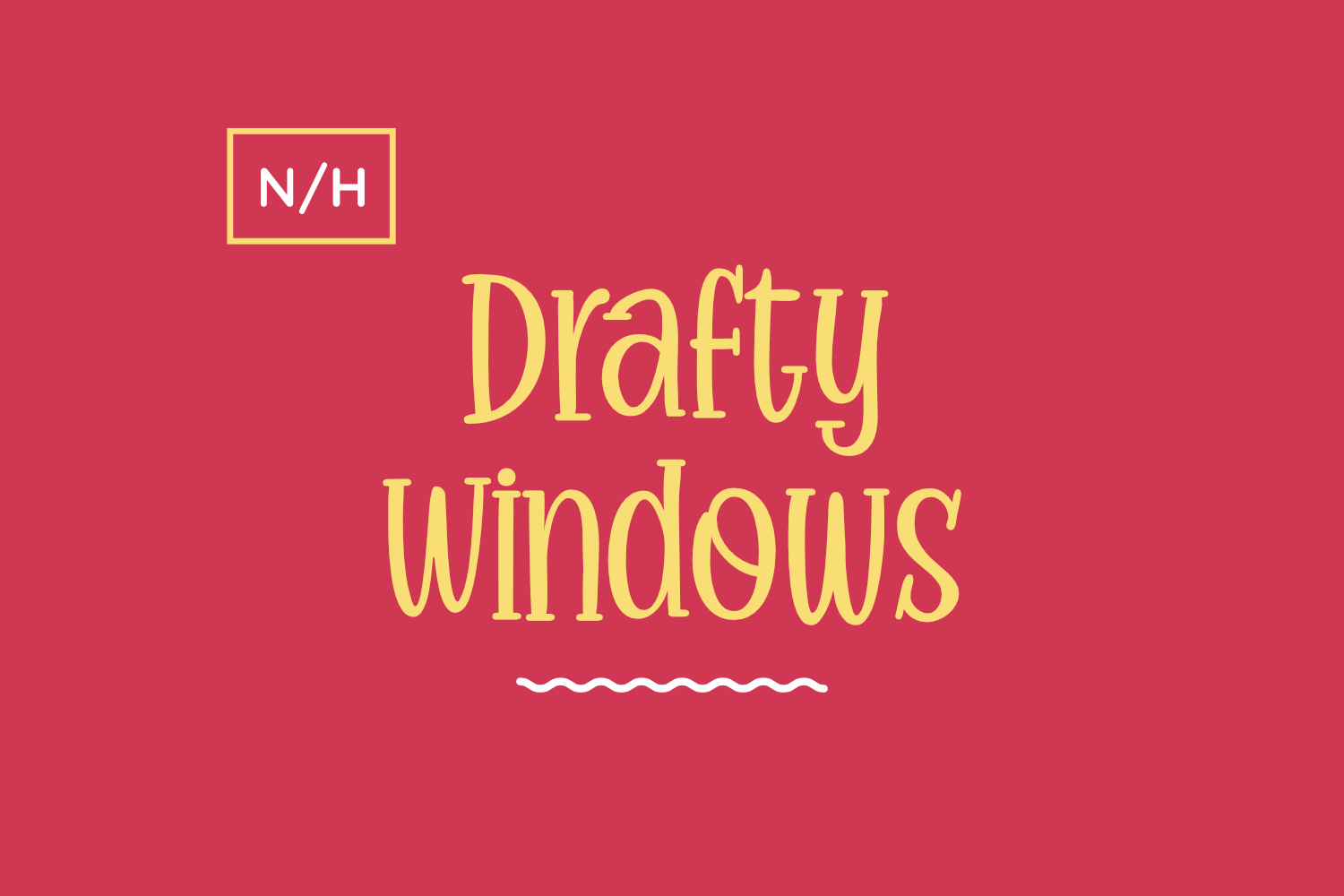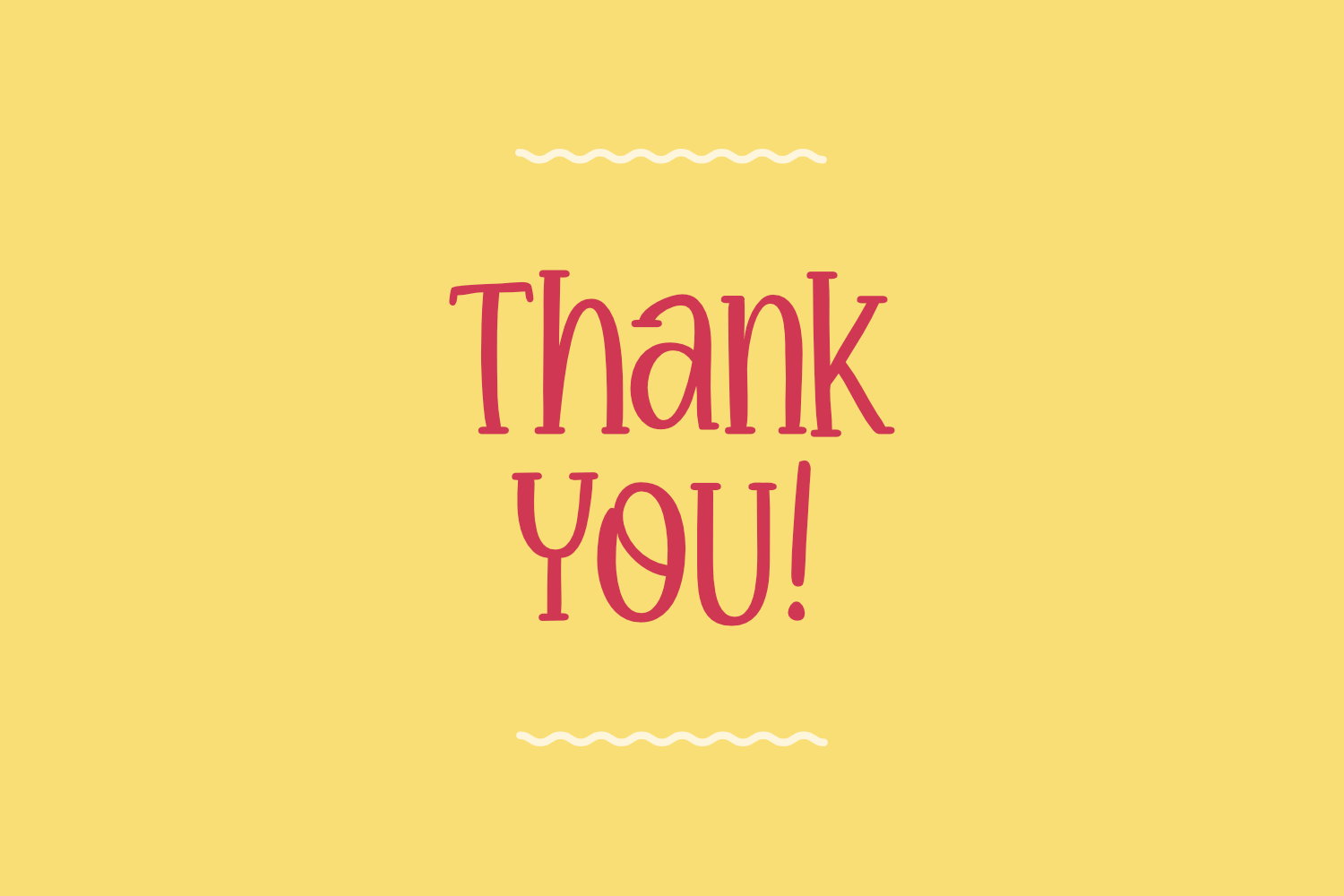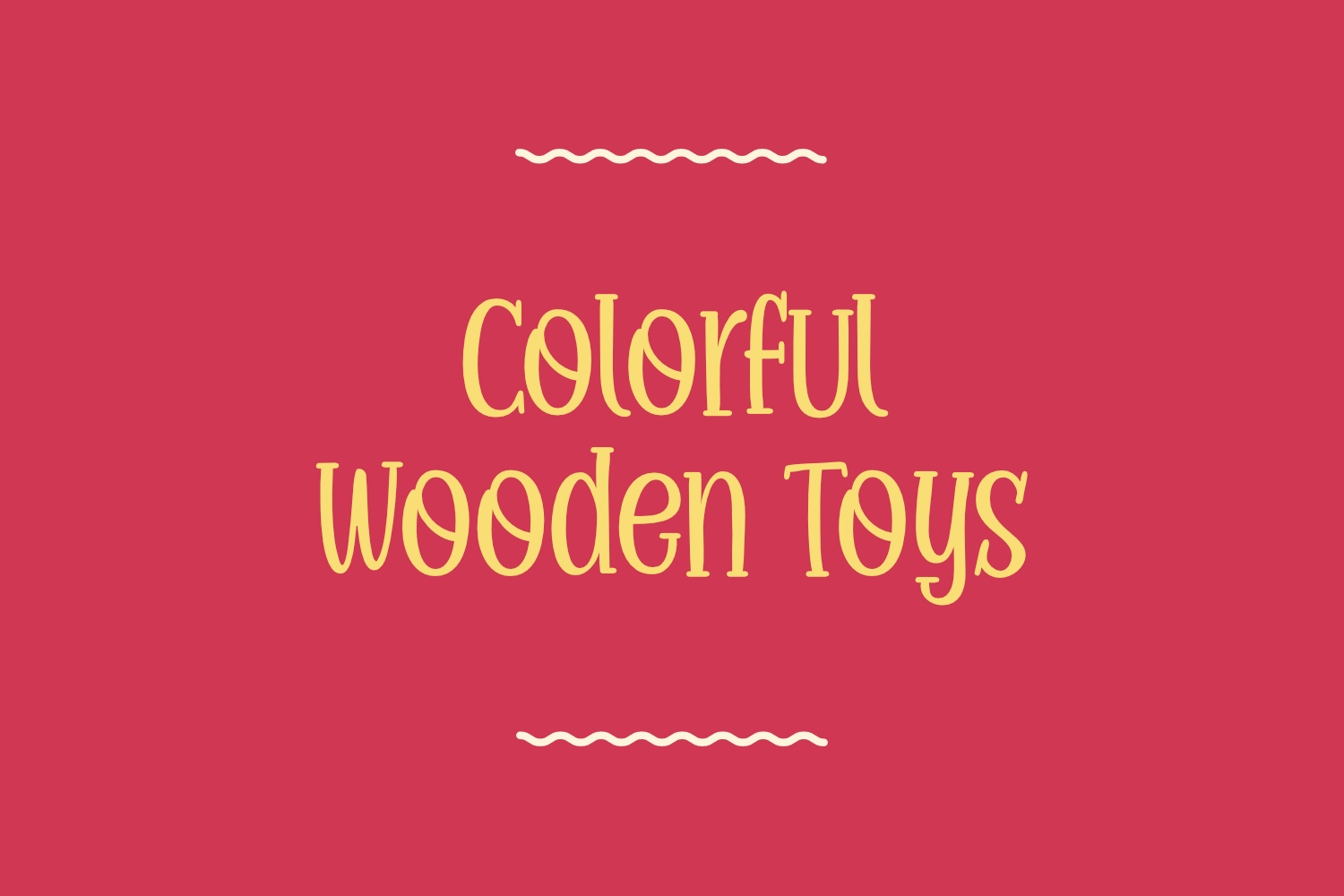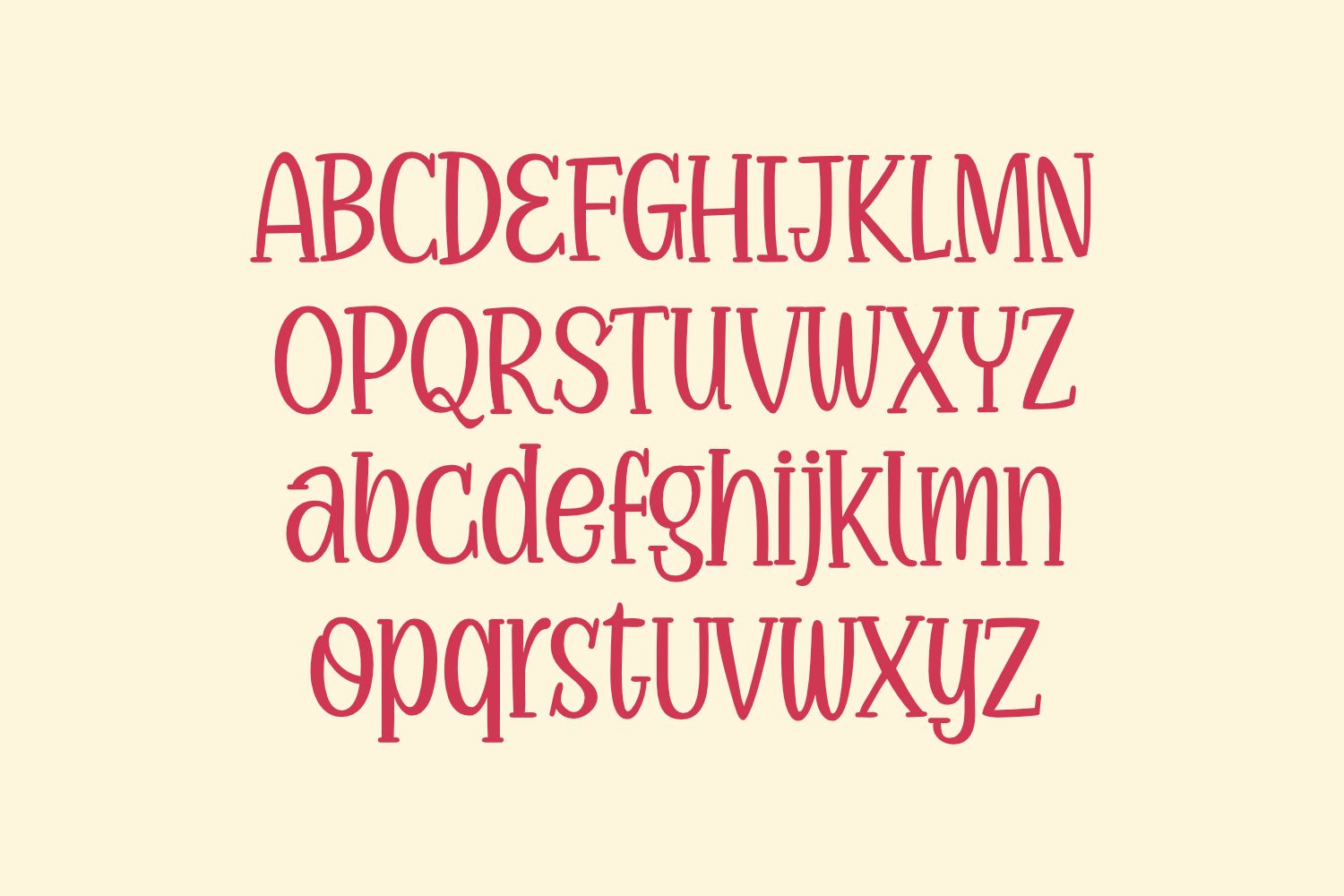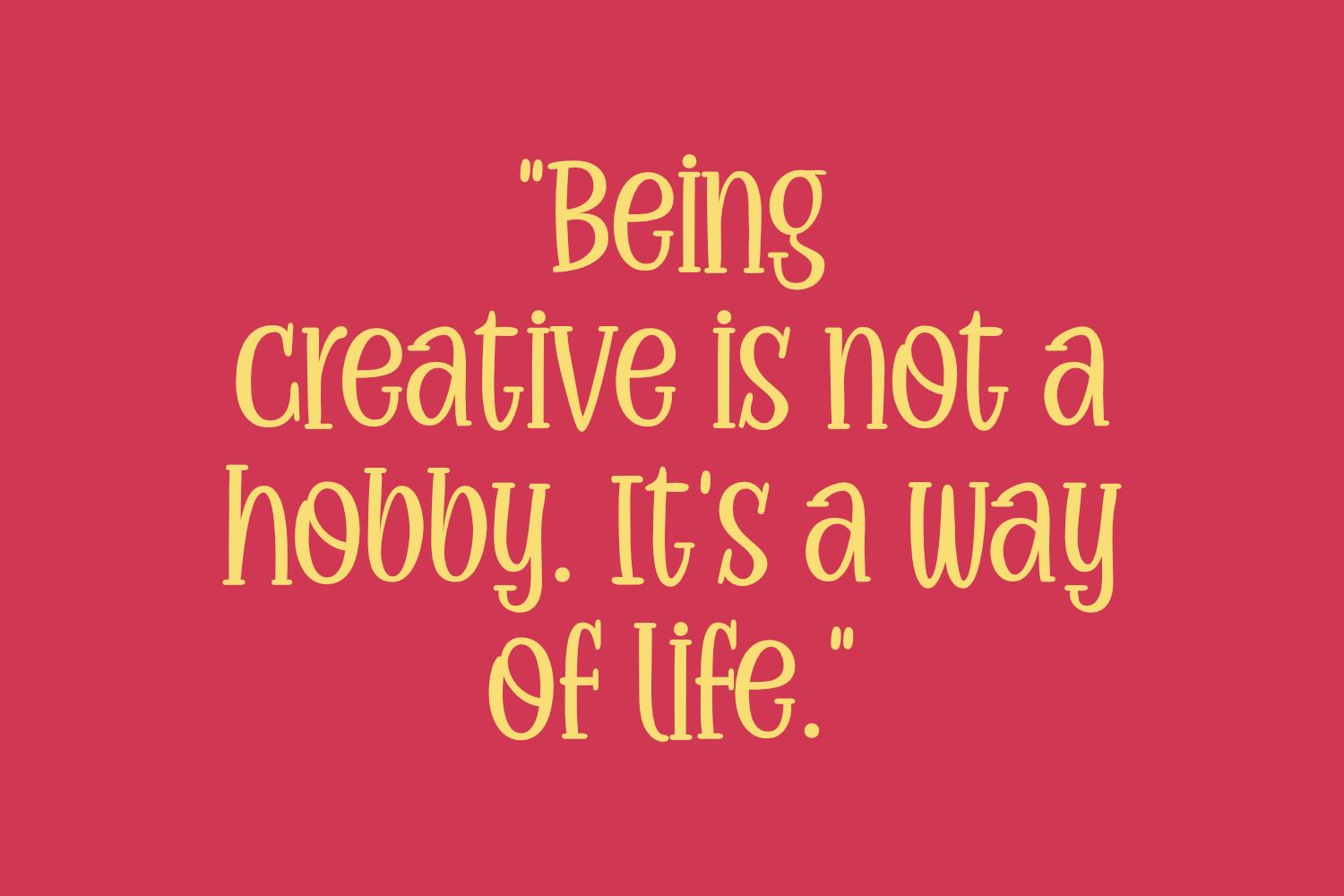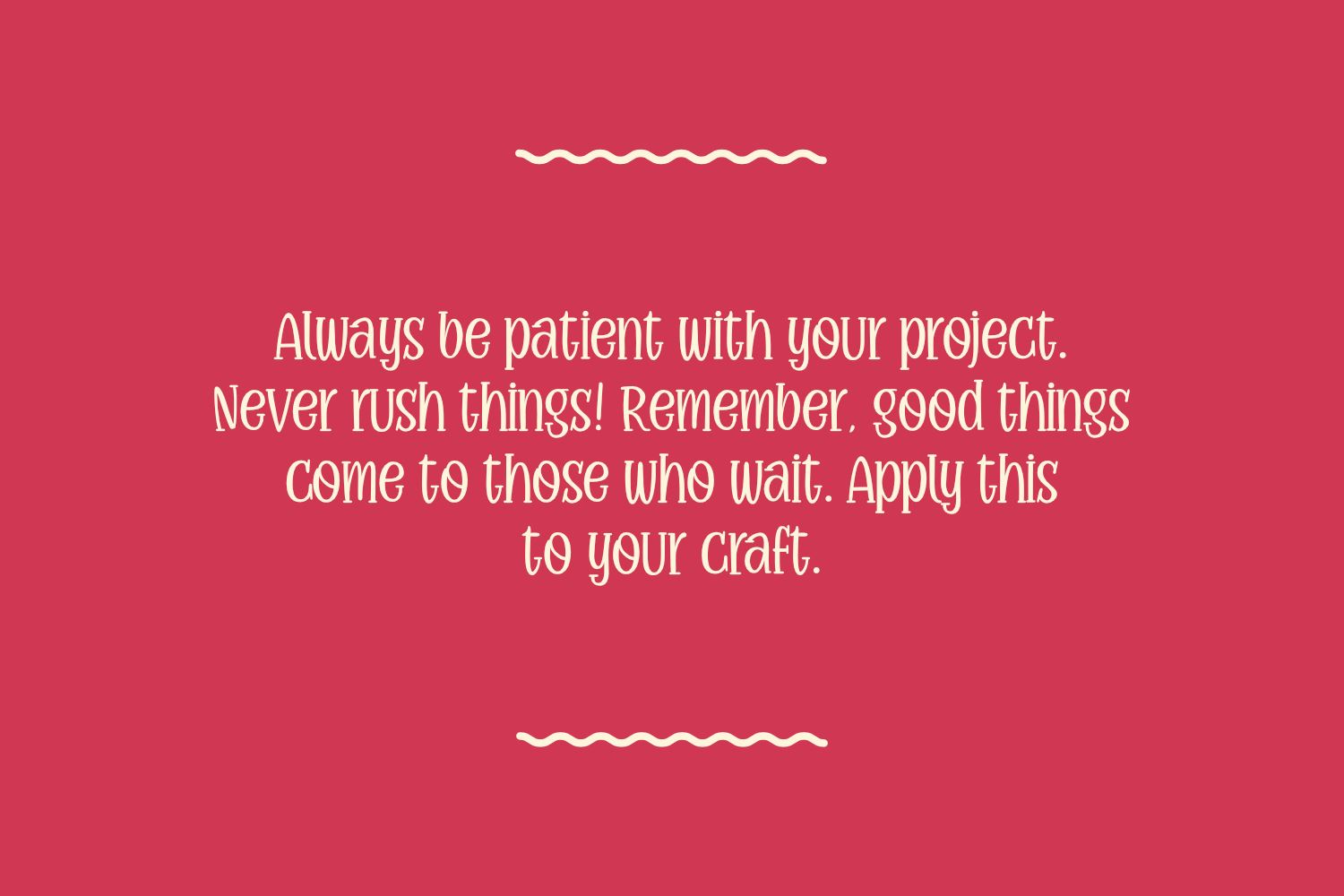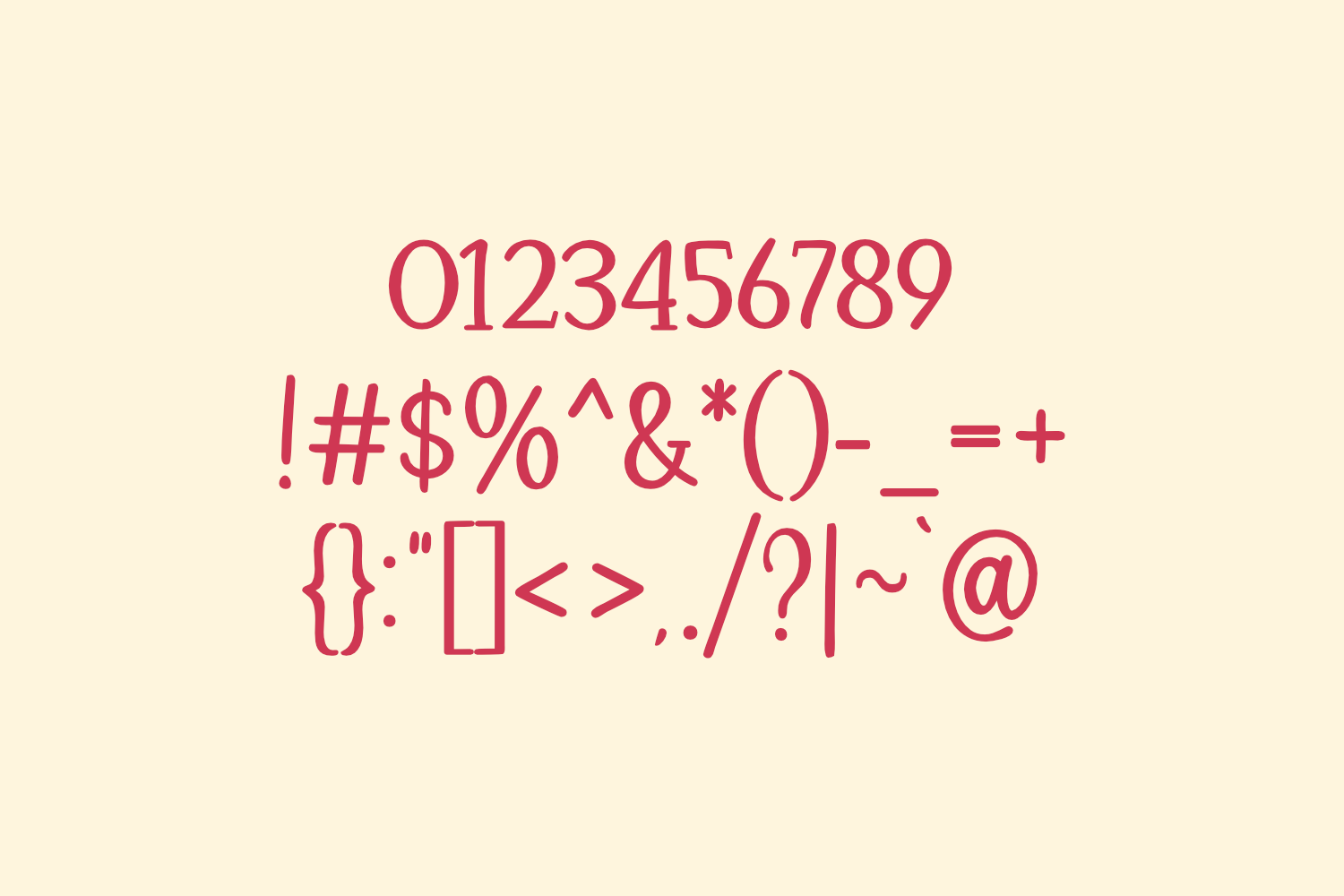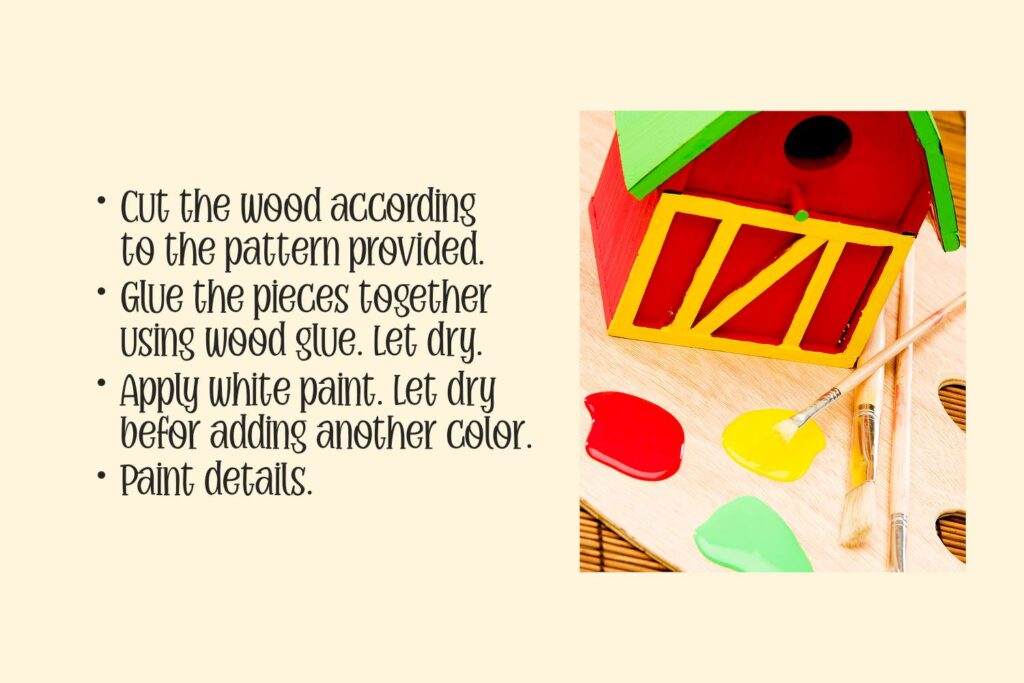
Drafty Windows – a Whimsical Script Font
About Drafty Windows – a Whimsical Script Font
Drafty Windows is a cute, quirky and whimsical script font. Whether you use it for cartoon related designs, children games or just any creation that requires a lovely touch, this font will be an amazing choice.